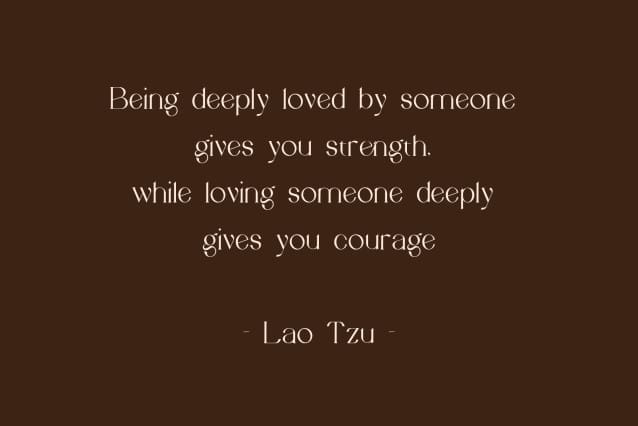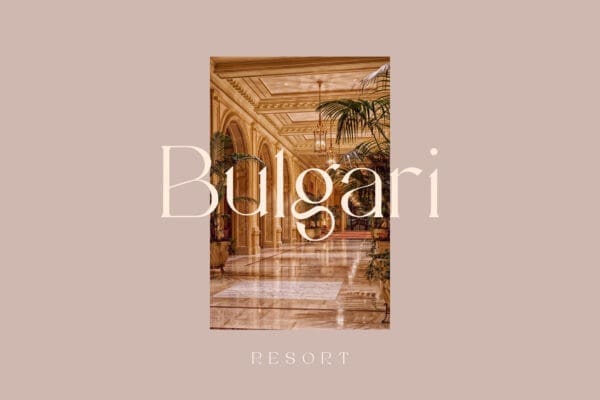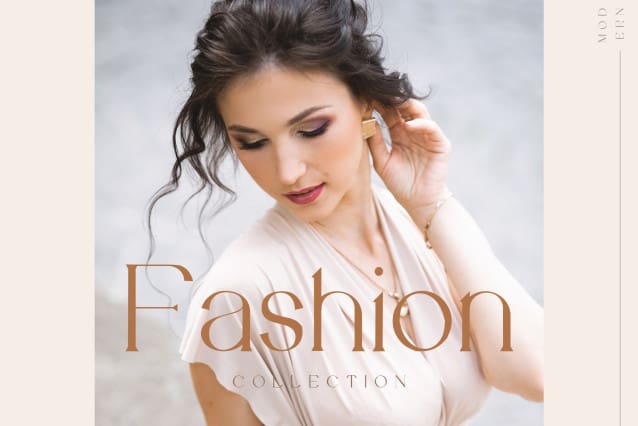
Vilaka Serif Typeface
Vilaka Serif Typeface is a classic themed font with a soft touch and combined with a modern and minimalist style. Vilaka Font is designed for design purposes with a classic feel wrapped in luxury. suitable for magazine design, logo type, blog writing, book publishing and other classic designs.